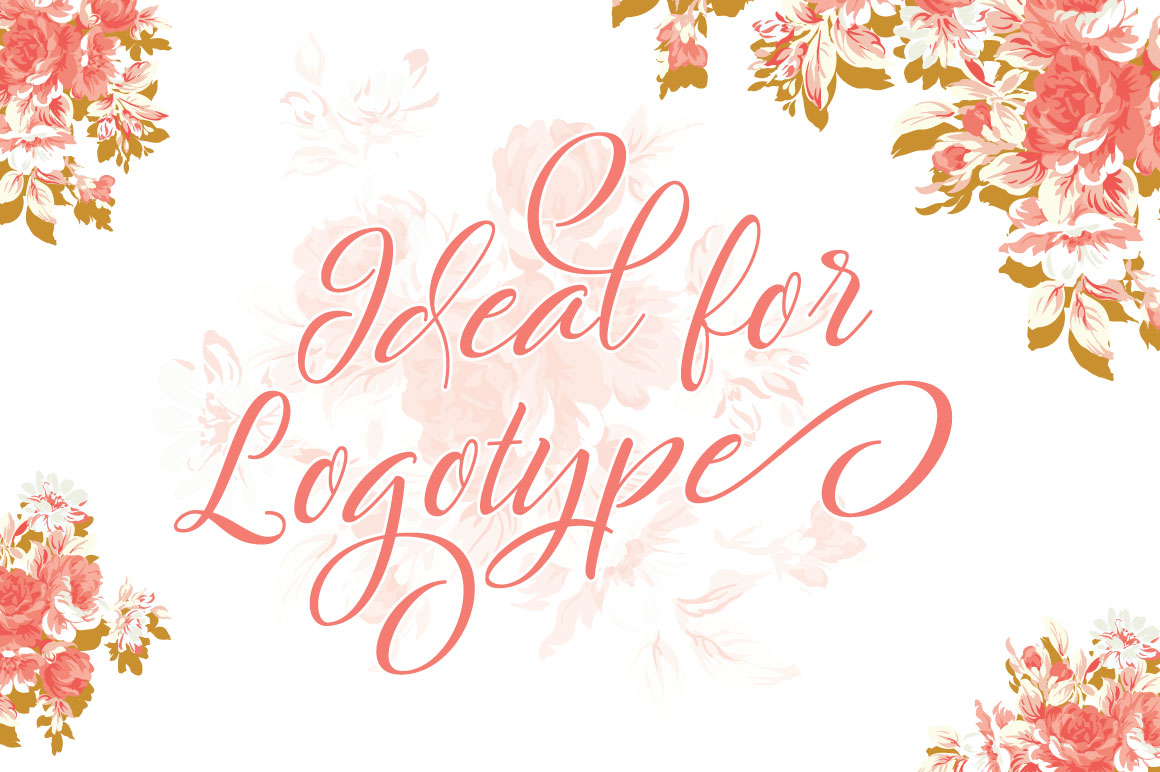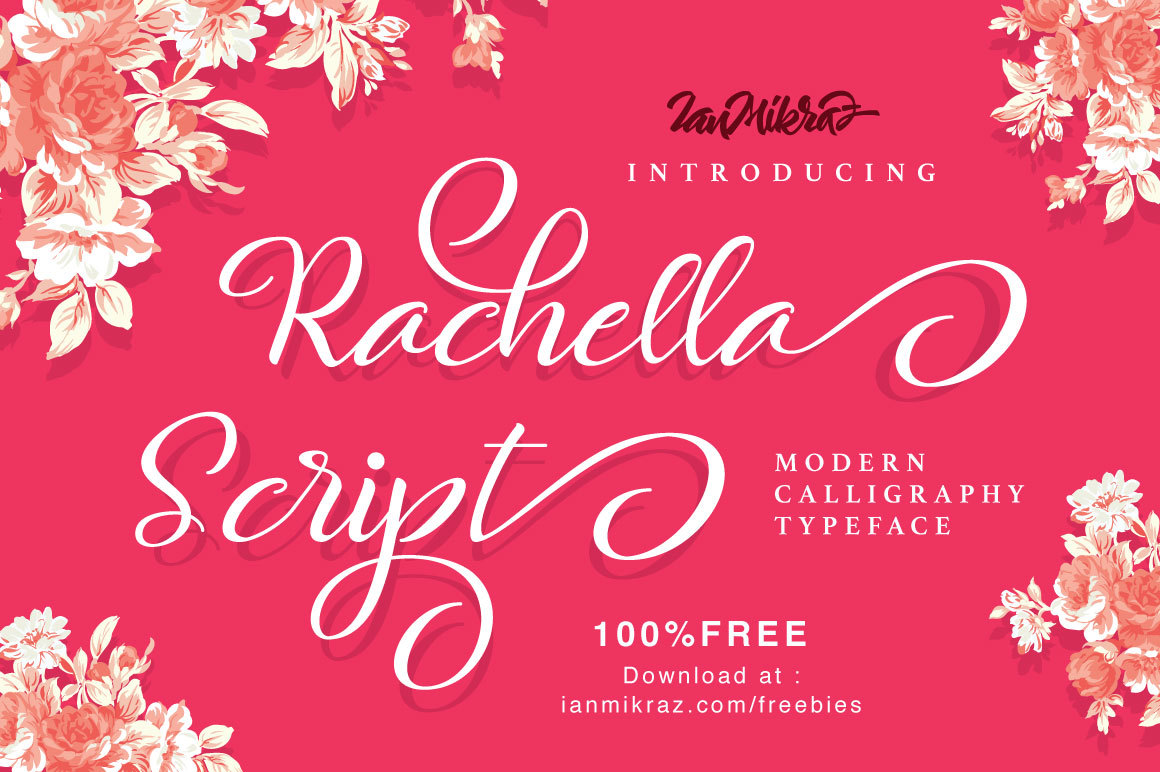
Rachella Calligraphy
Rachella Calligraphy Font
Rachella Script Free Font Typeface is a new Modern Calligraphy Typeface Fonts collection from Ianmikraz studio.
Combines from copperplate to contemporary typeface, classic, beauty and elegant touch.
Rachella Script Free Font Typeface features 270 glyphs and 87 alternate character contain with opentype features.